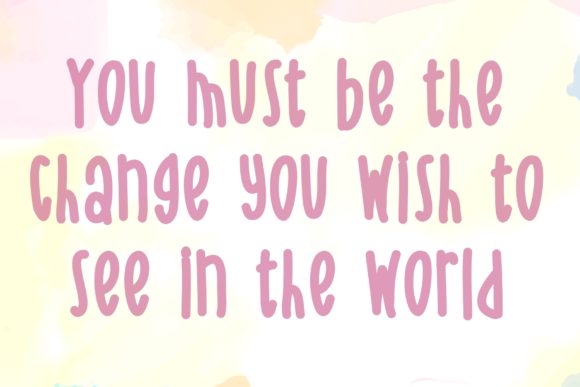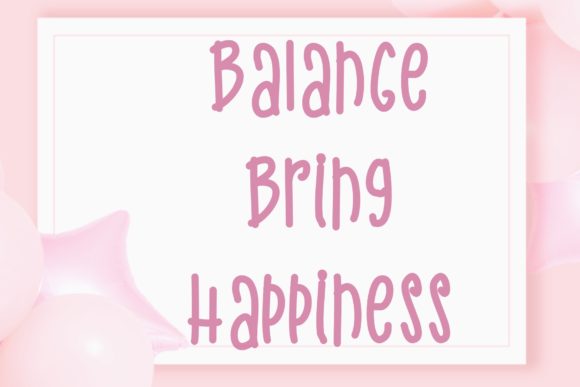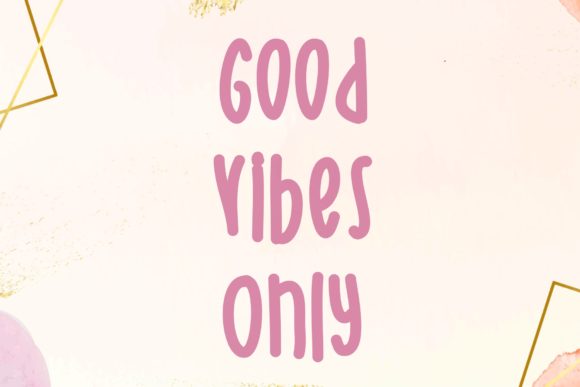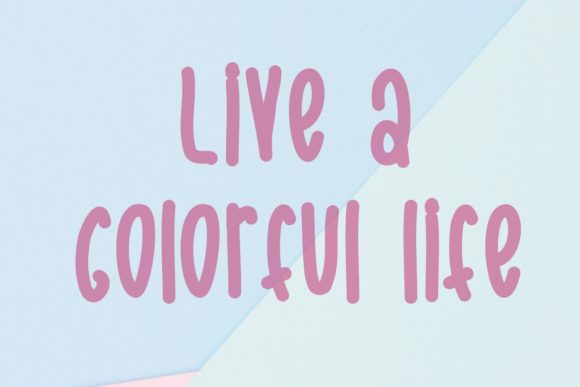
Introducing Harmony Font: Add a Touch of Whimsy to Your Designs
Are you tired of using the same old fonts in your designs? Look no further than Harmony Font, a cute and quirky handwritten font that’s sure to make your creations stand out. With its bold and unique style, Harmony Font is perfect for designers and crafters who want to add a touch of personality to their work.
What is Harmony Font?
Harmony Font is a handwritten font that’s designed to bring a sense of fun and playfulness to your designs. Its bold and chunky letters are perfect for making a statement, while its quirky and irregular shapes add a touch of whimsy. Whether you’re creating a logo, a poster, or a social media graphic, Harmony Font is sure to make your design pop.
Key Features of Harmony Font
- Cute and quirky design: Harmony Font has a unique and playful design that’s sure to capture attention.
- Bold and chunky letters: The font’s bold and chunky letters make it perfect for creating eye-catching headlines and titles.
- Handwritten style: Harmony Font has a handwritten style that gives it a personal and friendly feel.
- Unique and irregular shapes: The font’s irregular shapes add a touch of whimsy and playfulness to your designs.
Harmony Font is perfect for designers and crafters who want to add a touch of personality to their work. Whether you’re creating digital products, such as printable art or social media graphics, or physical products, such as signs or posters, Harmony Font is sure to make your designs stand out.
Use Cases for Harmony Font
- Logos and branding: Use Harmony Font to create a unique and memorable logo for your business or brand.
- Posters and flyers: Add a touch of whimsy to your posters and flyers with Harmony Font.
- Social media graphics: Use Harmony Font to create eye-catching social media graphics that will help you stand out from the crowd.
- Printable art: Create unique and playful printable art with Harmony Font.
Tips for Using Harmony Font
- Use it sparingly: While Harmony Font is bold and eye-catching, it can be overwhelming if used too much. Use it sparingly to add emphasis to your designs.
- Pair it with other fonts: Harmony Font pairs well with other fonts, such as sans-serif fonts or script fonts. Experiment with different pairings to find the one that works best for your design.
- Experiment with colors: Harmony Font looks great in a variety of colors, from bright and bold to pastel and soft. Experiment with different colors to find the one that works best for your design.
Harmony Font is a unique and playful handwritten font that’s perfect for designers and crafters who want to add a touch of personality to their work. With its bold and chunky letters, quirky and irregular shapes, and cute and whimsical design, Harmony Font is sure to make your designs stand out. Whether you’re creating logos, posters, social media graphics, or printable art, Harmony Font is a great choice.